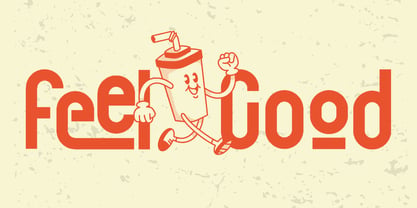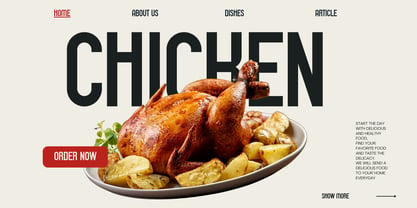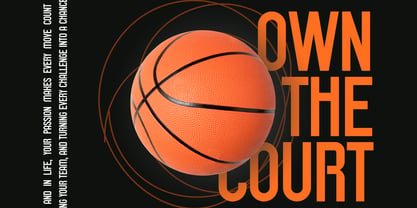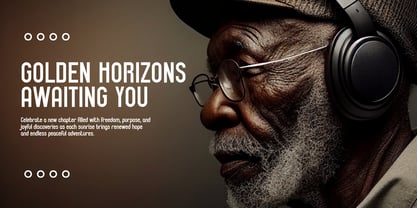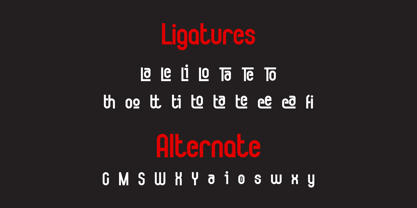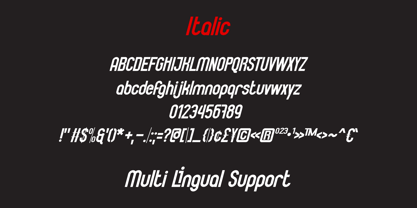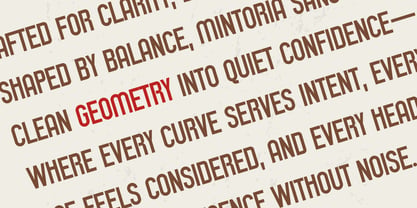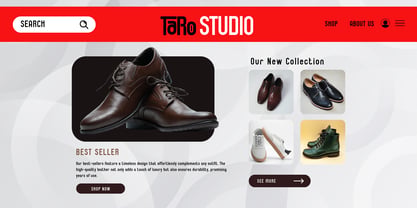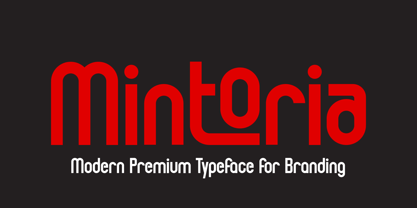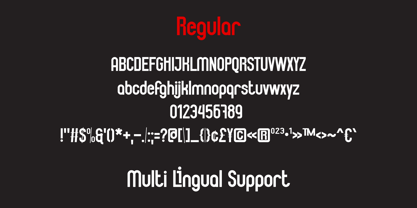
Mintoria
by Brown Cupple Typeface
The Mintoria Font Family was designed by Nattha​ Potchanad​ and published by Brown Cupple Typeface. Mintoria contains 2 styles and family package options.
Mintoria is a modern sans serif typeface engineered for clarity, balance, and confident brand expression. Built as a seamless duo—Regular for structural integrity and Italic for intentional emphasis—Mintoria performs across high-impact logos, editorial headlines, posters, advertising, and digital interfaces. The design prioritizes optical harmony in curves, refined proportions, and deliberate spacing to ensure strong presence without visual noise.